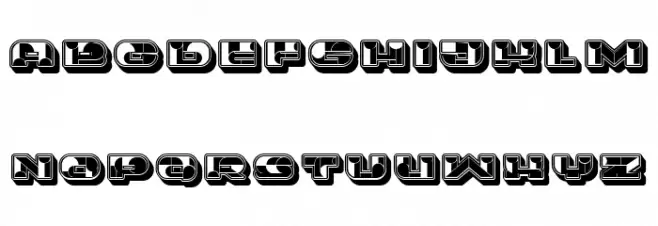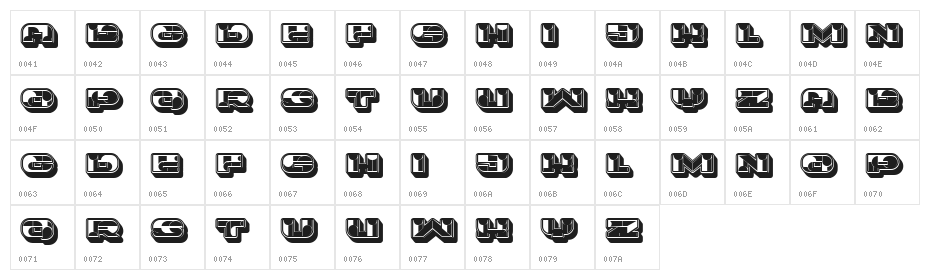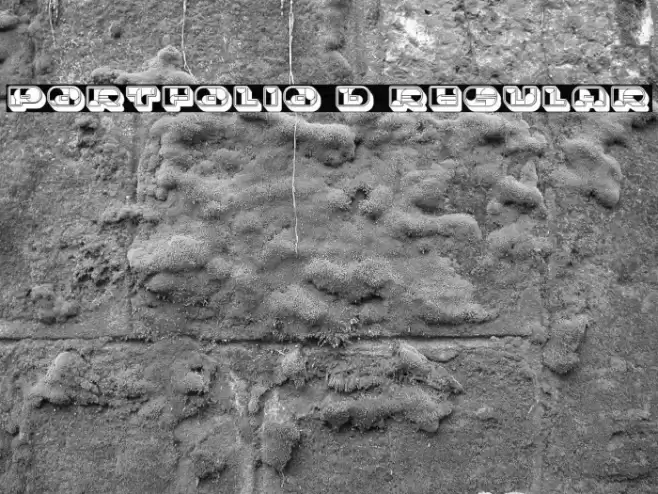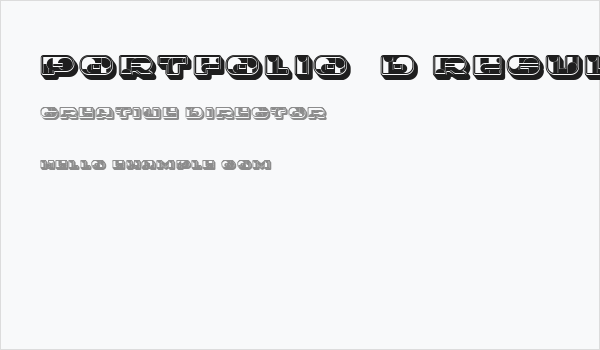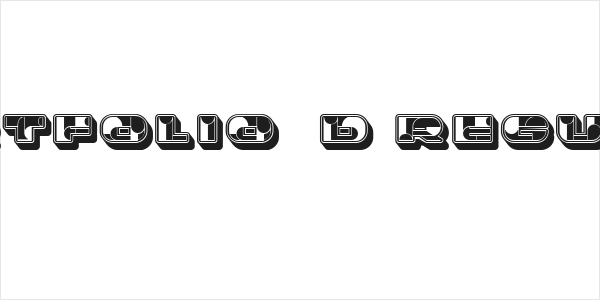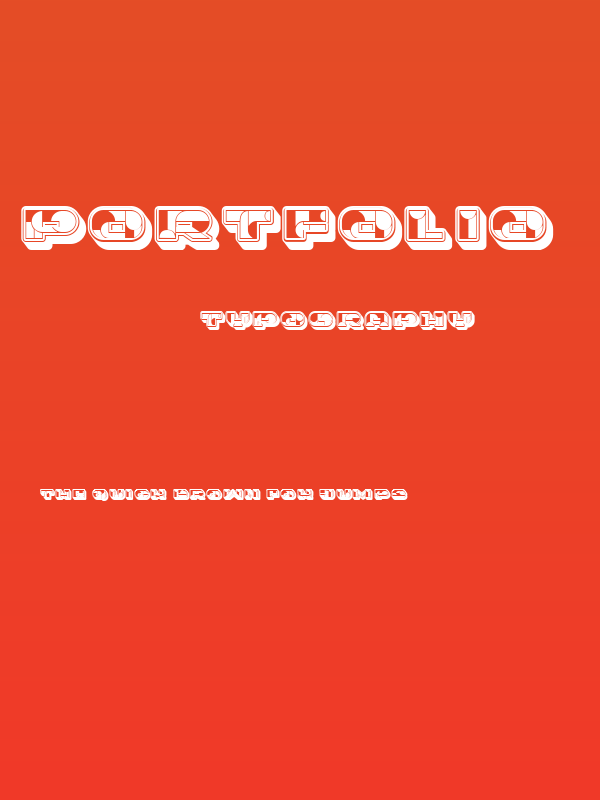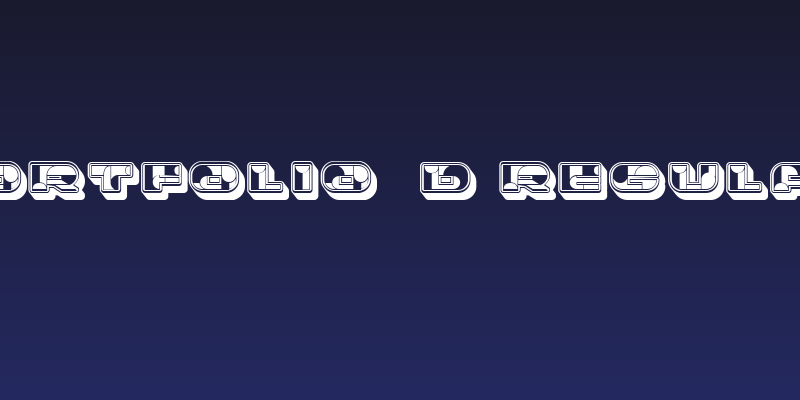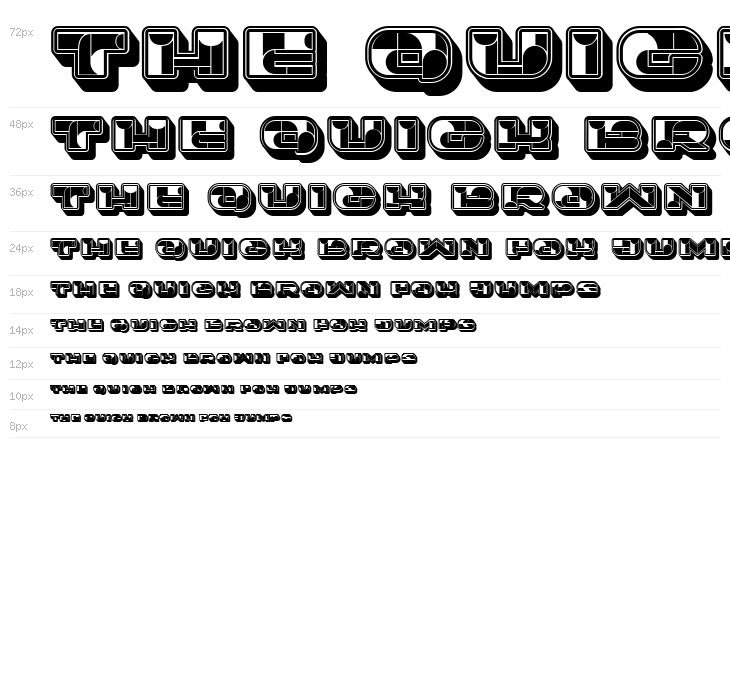
Portfolio 3D Regular Font
Portfolio 3D Regular Description
This font features a bold, three-dimensional style with a strong visual impact. The characters are designed with a shadow effect, giving them a layered, extruded appearance. The geometric shapes and clean lines create a modern and futuristic feel, while the consistent thickness of the strokes adds to the boldness. Each letter is distinct, with sharp edges and a uniform structure, making it highly legible despite its decorative nature. The font's unique 3D effect is achieved through a clever use of shading and perspective, making it stand out in any design project.
| Proposed Projects | Ideal for headlines, posters, logos, and any design project that requires a striking, modern aesthetic. |